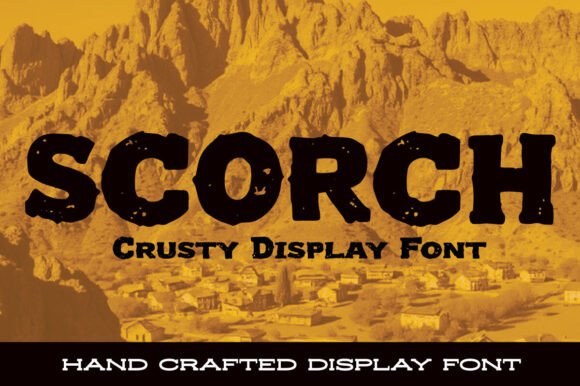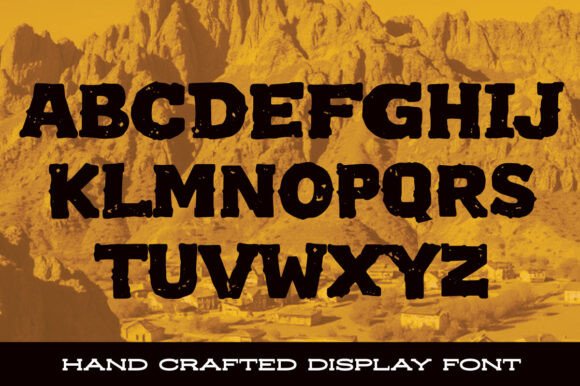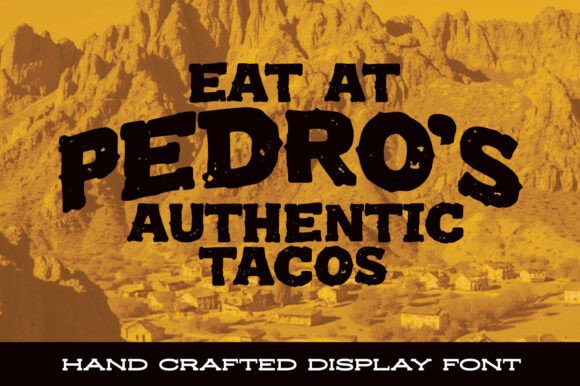
Scorch Font: Bold Grunge Display Font for Rebellious Branding
About the Scorch Font
Welcome to the world of Scorch Font, a typeface that will inspire your next great project. Scorch is a raw, hand-drawn grunge title/display font with a bold, distressed edge. Its rugged strokes and weathered details give it the look of something burned, scraped, and worn by time. Perfect for high-impact designs, album covers, streetwear branding, and anything that needs a scorched, rebellious attitude.